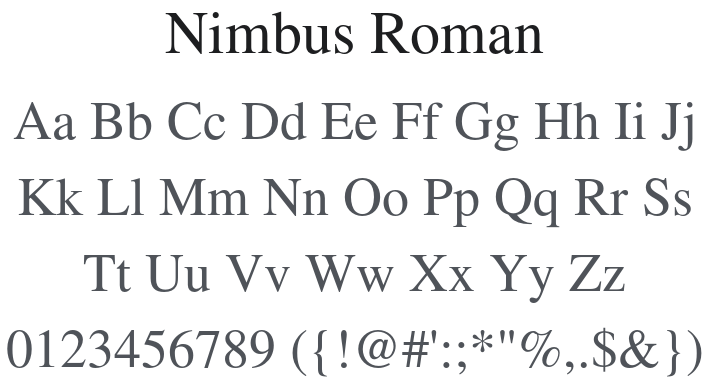
Nimbus Roman Font Family
by URW++
About Nimbus Roman
Nimbus Roman is a classic serif typeface from URW++ included in the URW Base35 open-source font package, a collection of 35 freely distributable PostScript Level 2 core font equivalents. It serves as a free alternative to Times New Roman, offering the same compact, high-contrast letterforms optimized for efficient use of space in newspapers, documents, academic papers, and general body text.